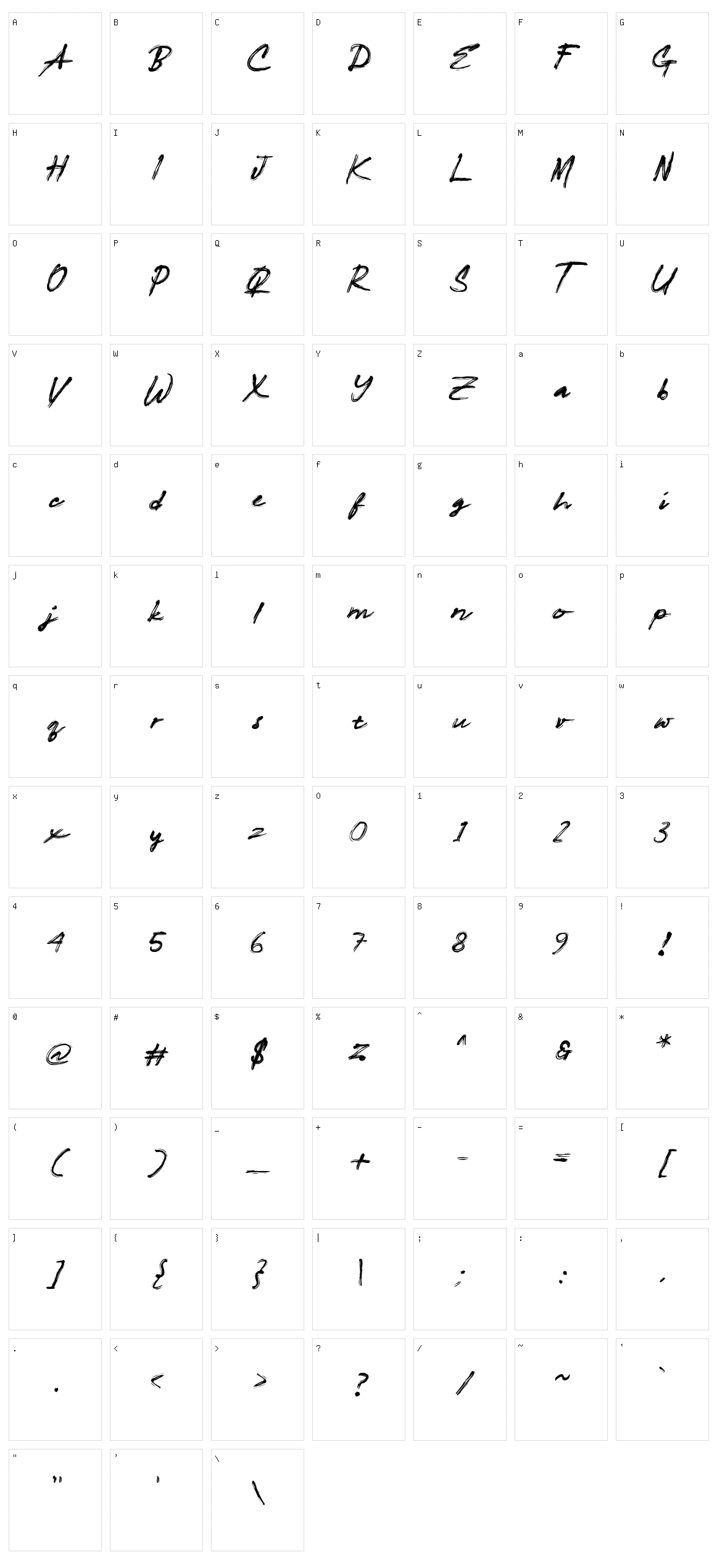
The free font Shallows is carefully designed by Ali Hamidi, showcasing a thoughtful balance of creativity and usability and falls under the Script font style. When you download the ZIP file, it contains only 350.09 KB of font files, making it lightweight and quick to download. Please review the license details below to understand permitted usage and distribution rights. If license information is not available, we recommend using this font for personal projects only or contacting the author directly for commercial usage permissions.